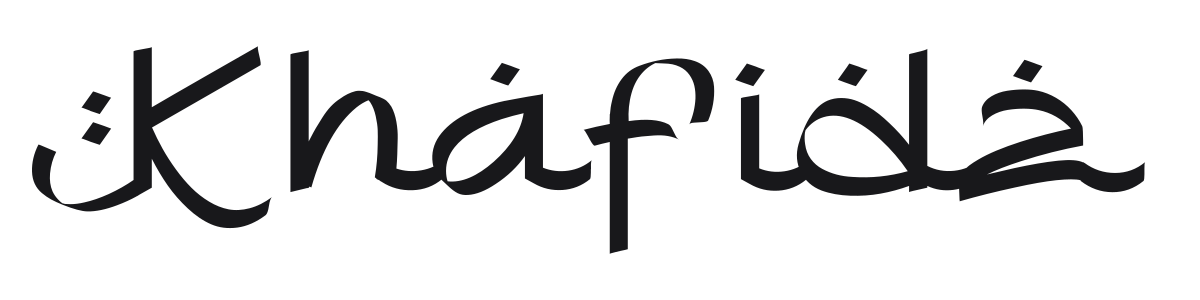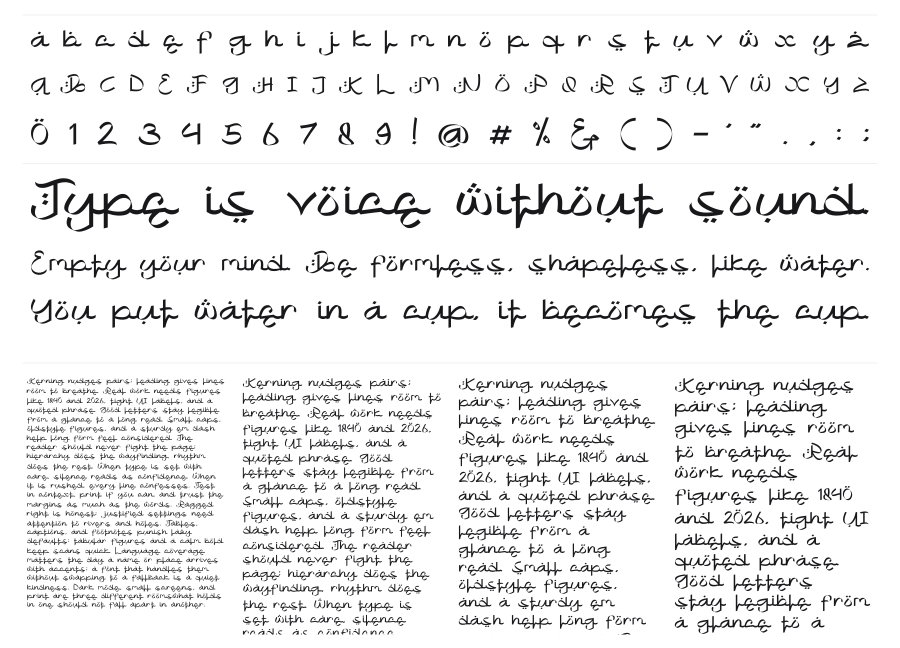
Khafidz
Khafidz is a casual connected script with unmistakable Arabic-influenced calligraphic character, blending Latin letter structures with flowing non-Latin visual rhythms. Hooked terminals, angular descenders, and an irregular baseline give it a handcrafted, exotic quality unlike most script fonts. It reads with confident looseness at large sizes, making it a strong choice for display work that needs cultural texture.